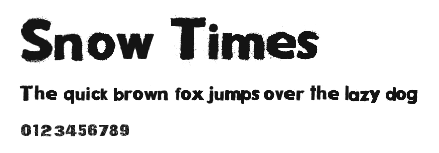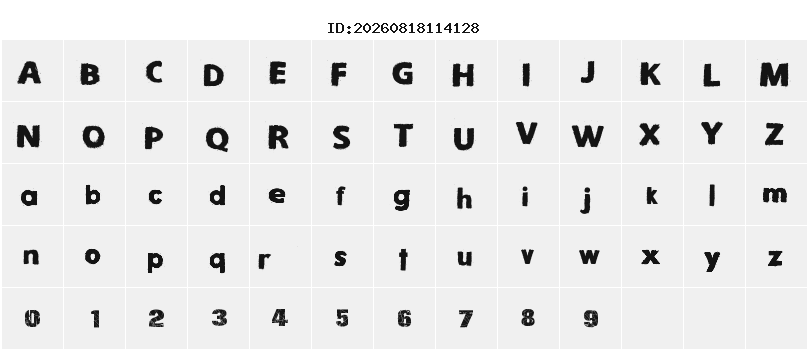
Snow Times Preview
• Font Name: Snow Times
About Snow Times.ttf
Snow Times.ttf is a modern, elegant sans-serif font designed for ultimate readability and visual harmony. Perfect for branding, headlines, web design, and print materials.